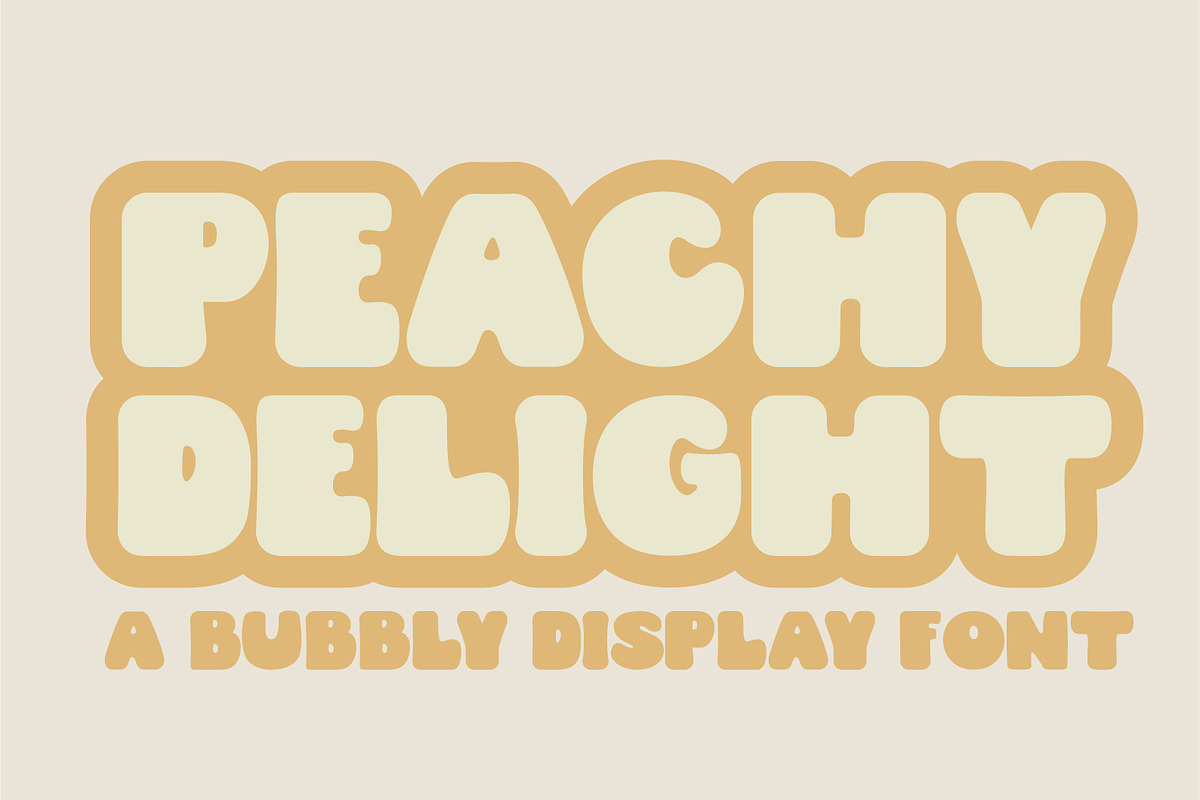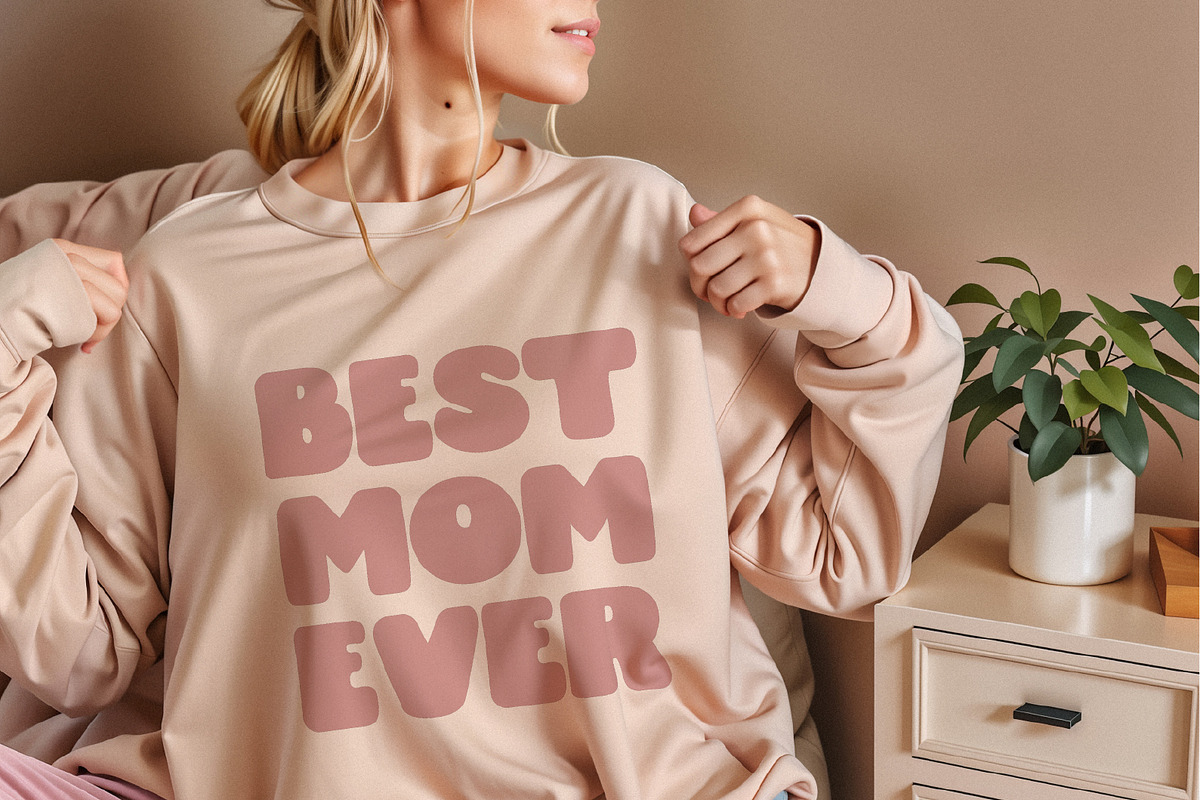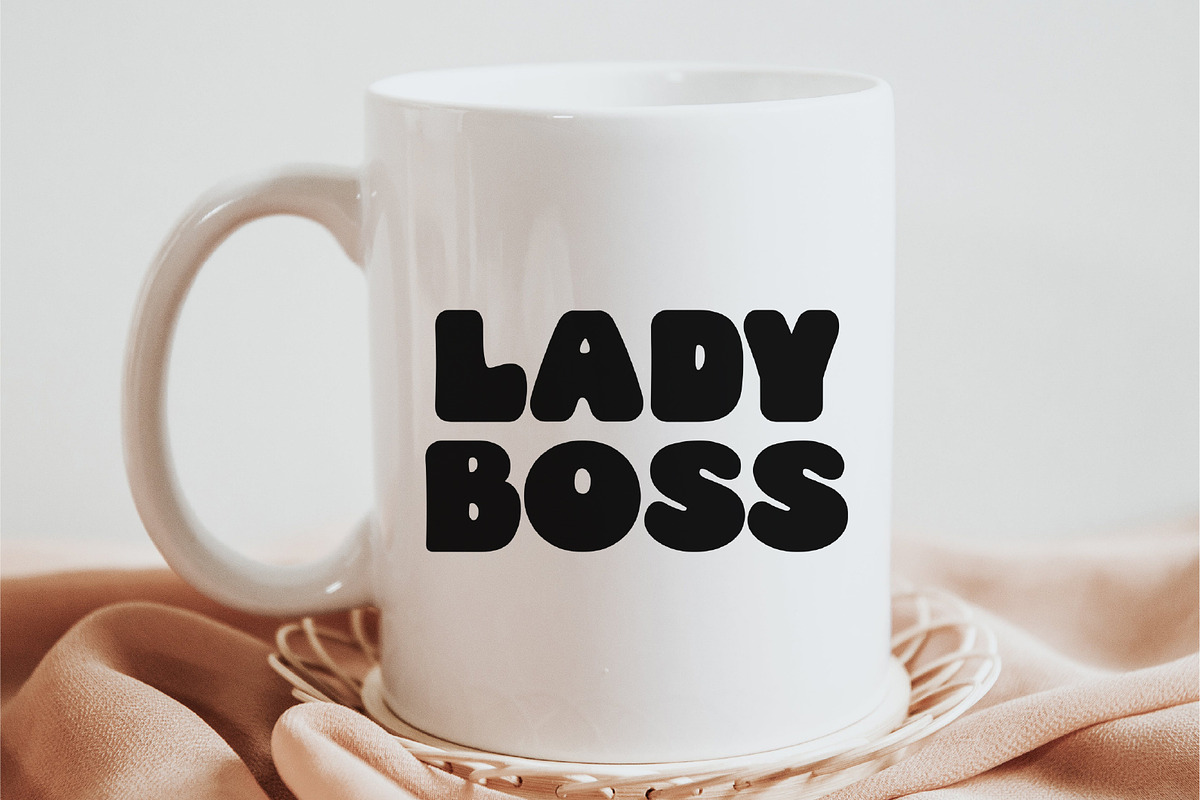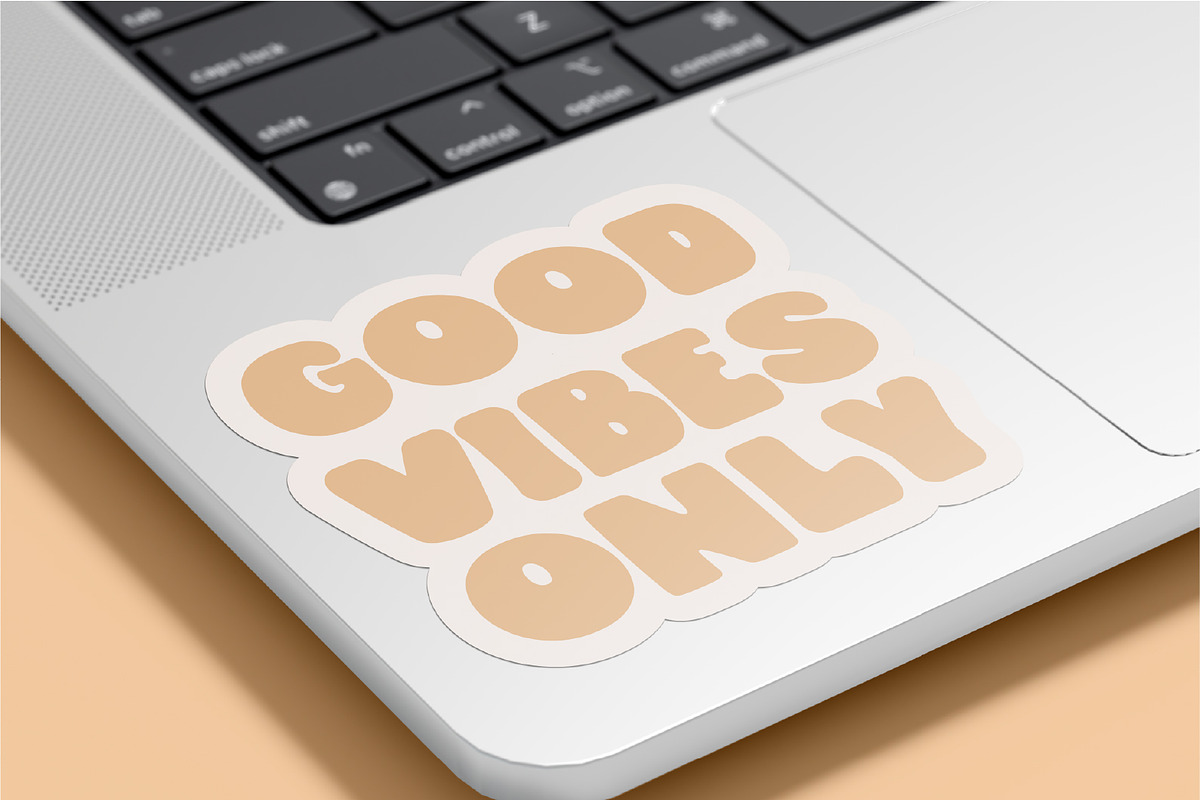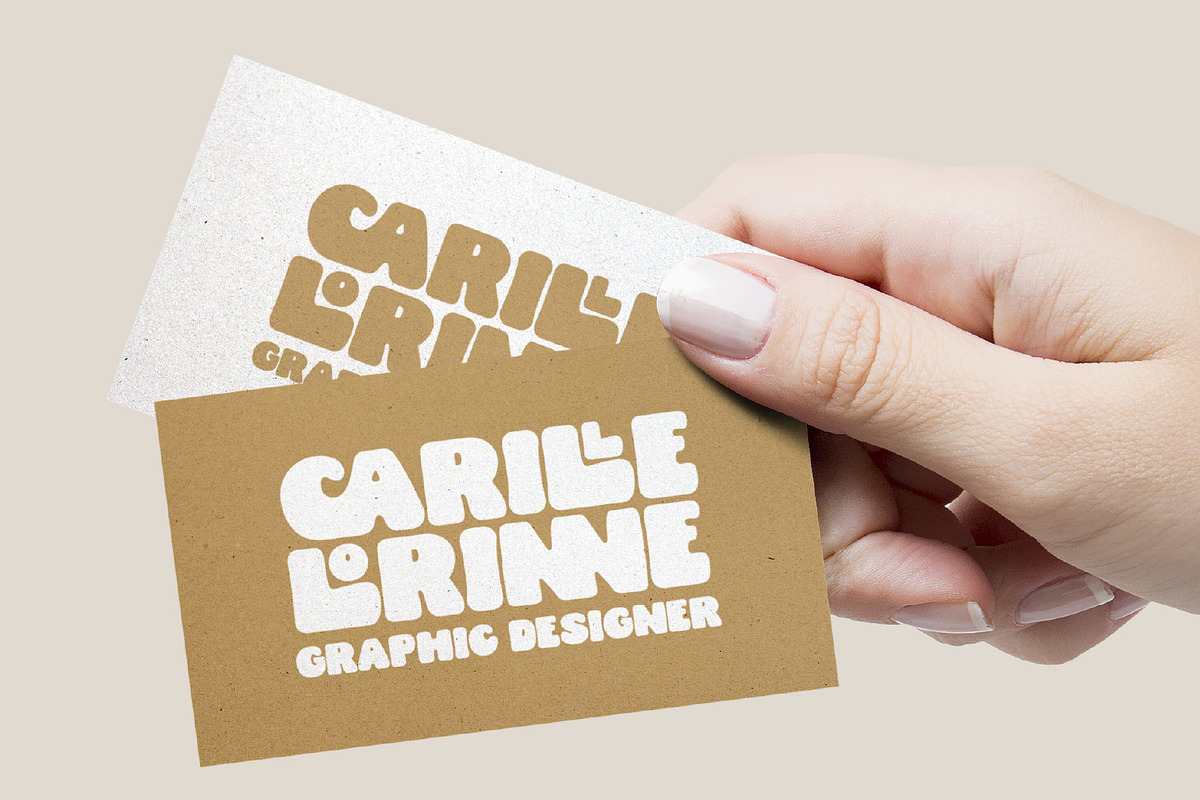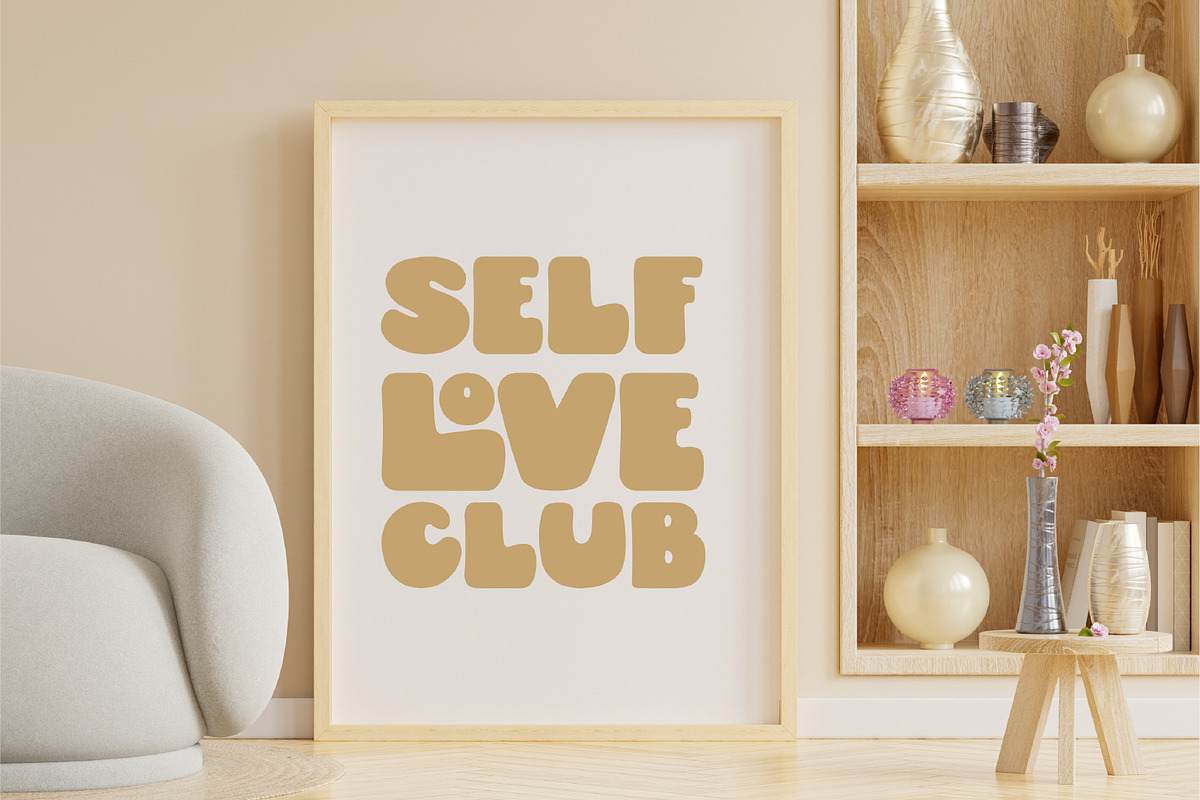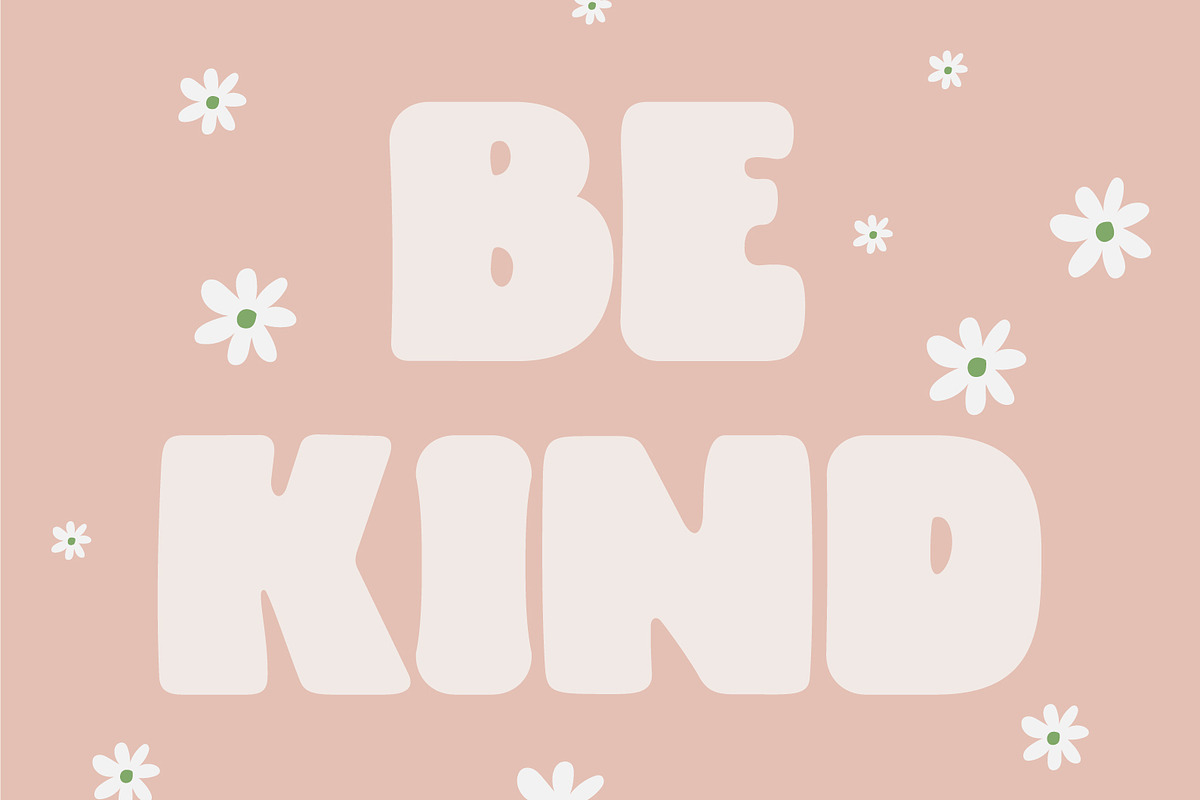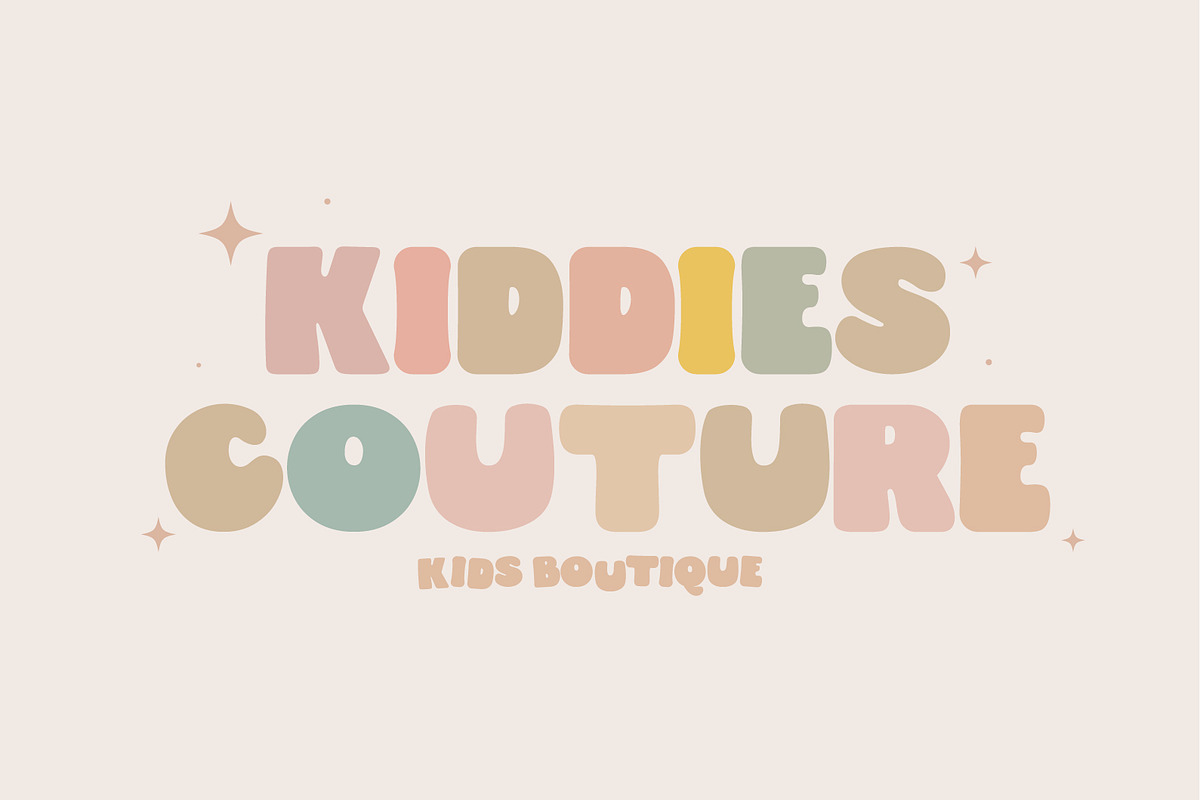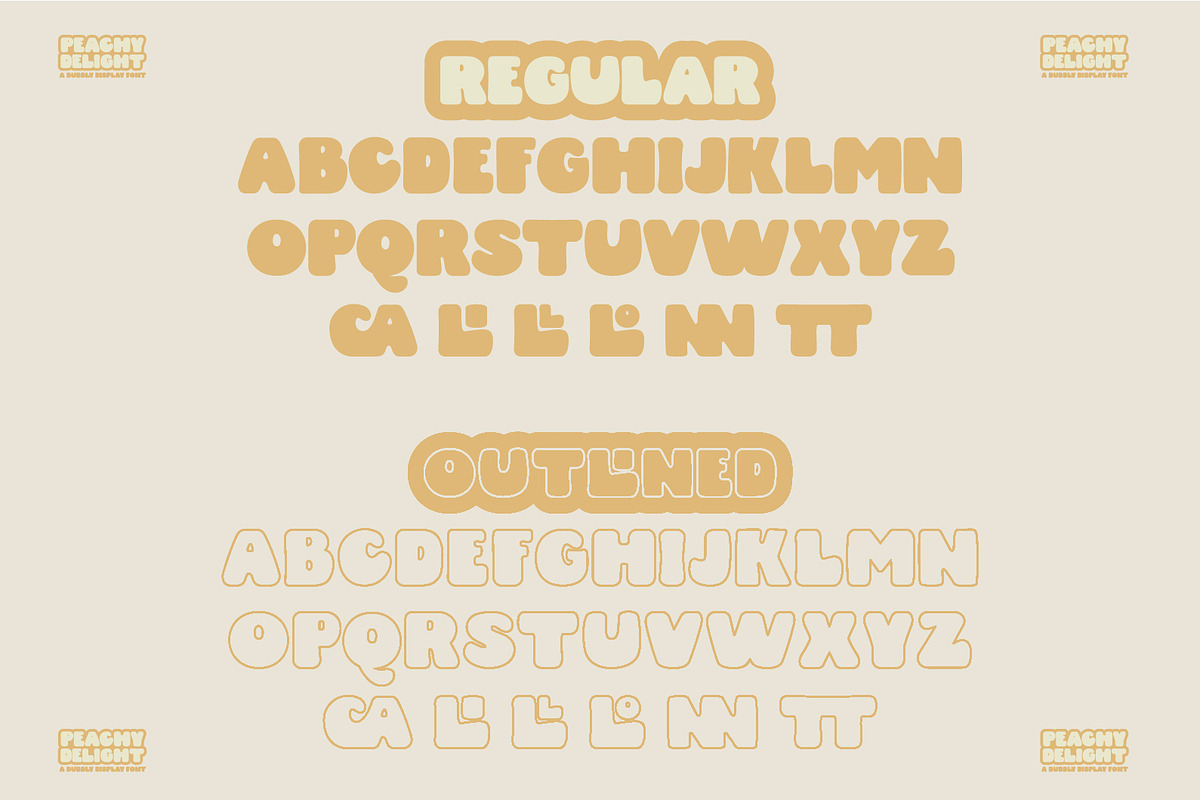
Peachy Delight A Bubbly Font Duo
Introducing Peachy Delight Duo – a bold and energetic display duo font that will bring a burst of joy to any design project. With its rounded edges and playful curves, this bubbly font exudes a sense of vibrancy and cheerfulness that is sure to captivate your audience.
Peachy Delight Duo is not just your ordinary font. It goes beyond the ordinary and offers you even more creative possibilities with its outlined version. The outlined bubbly font style adds an extra layer of depth and dimension to your designs, making them truly pop off the page.